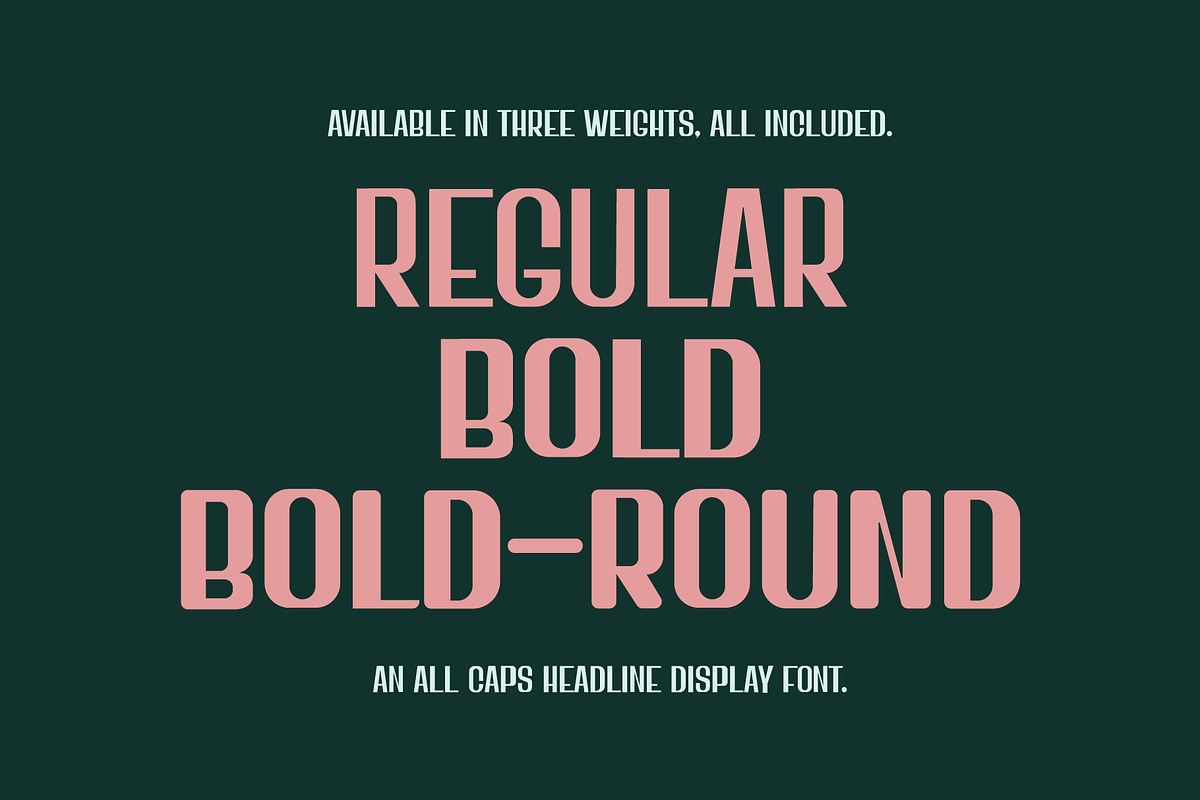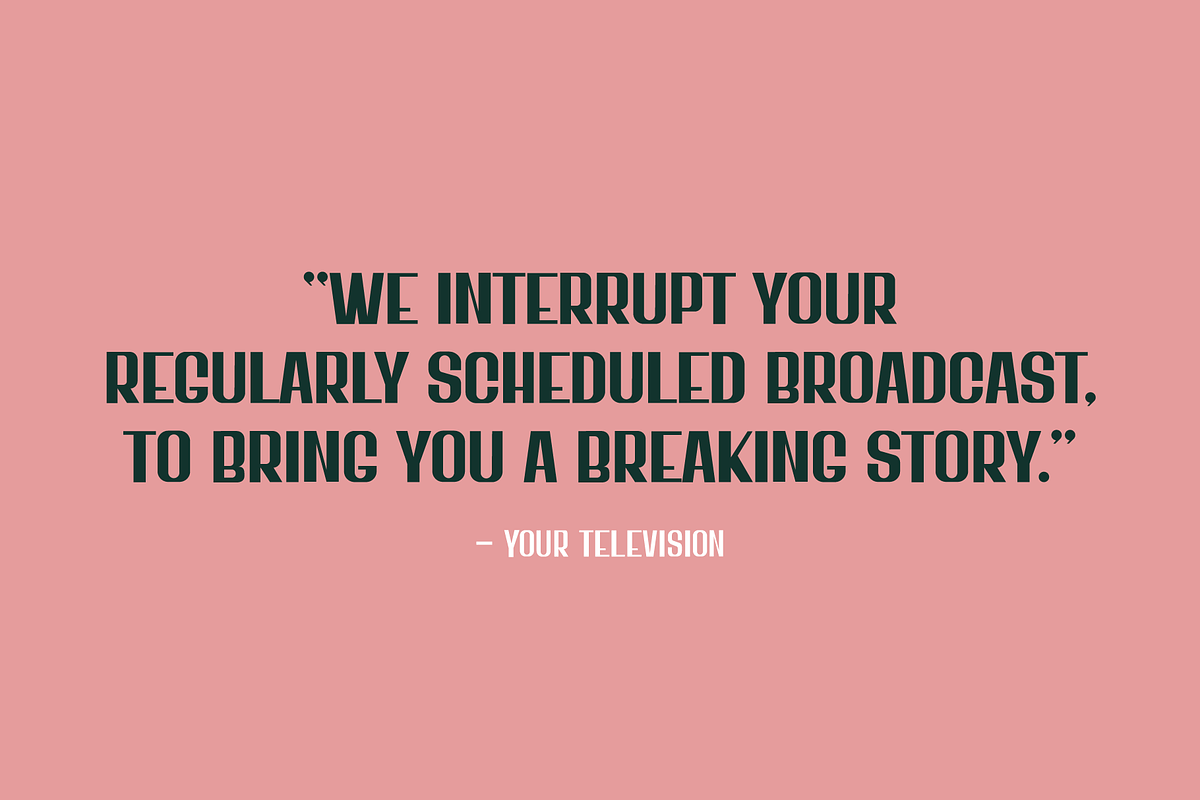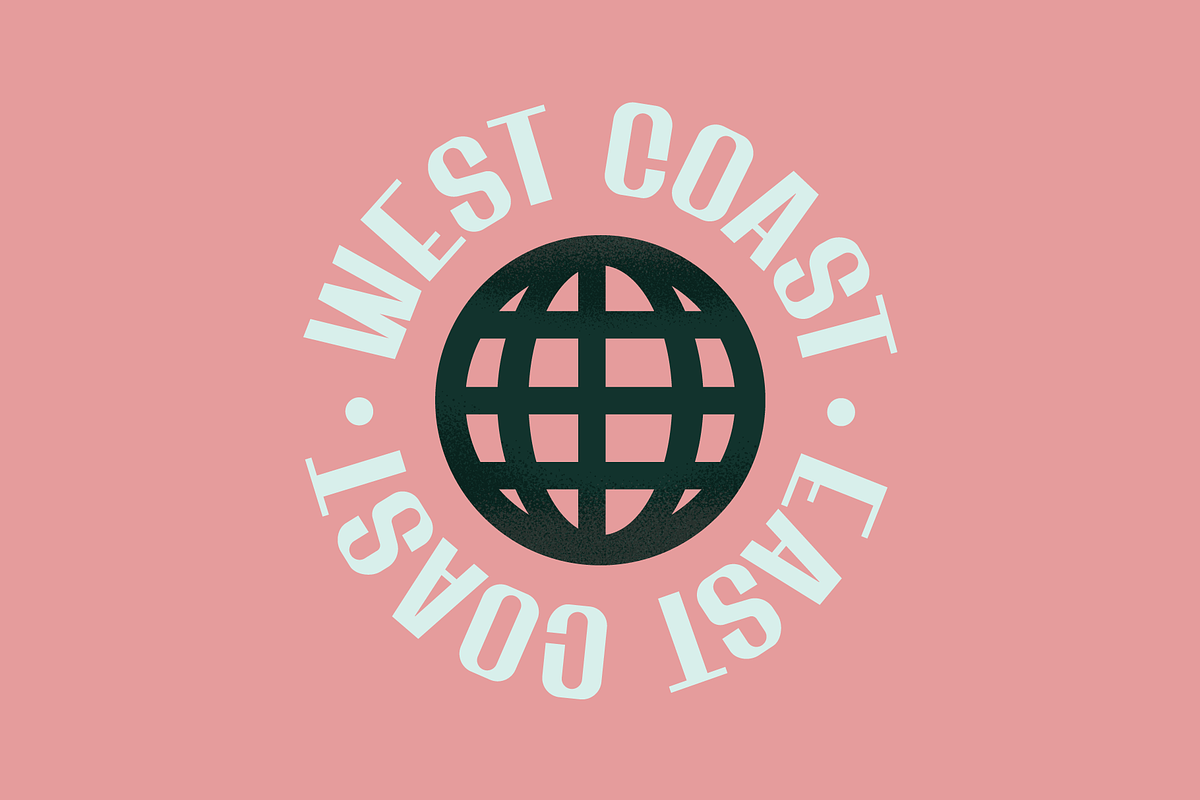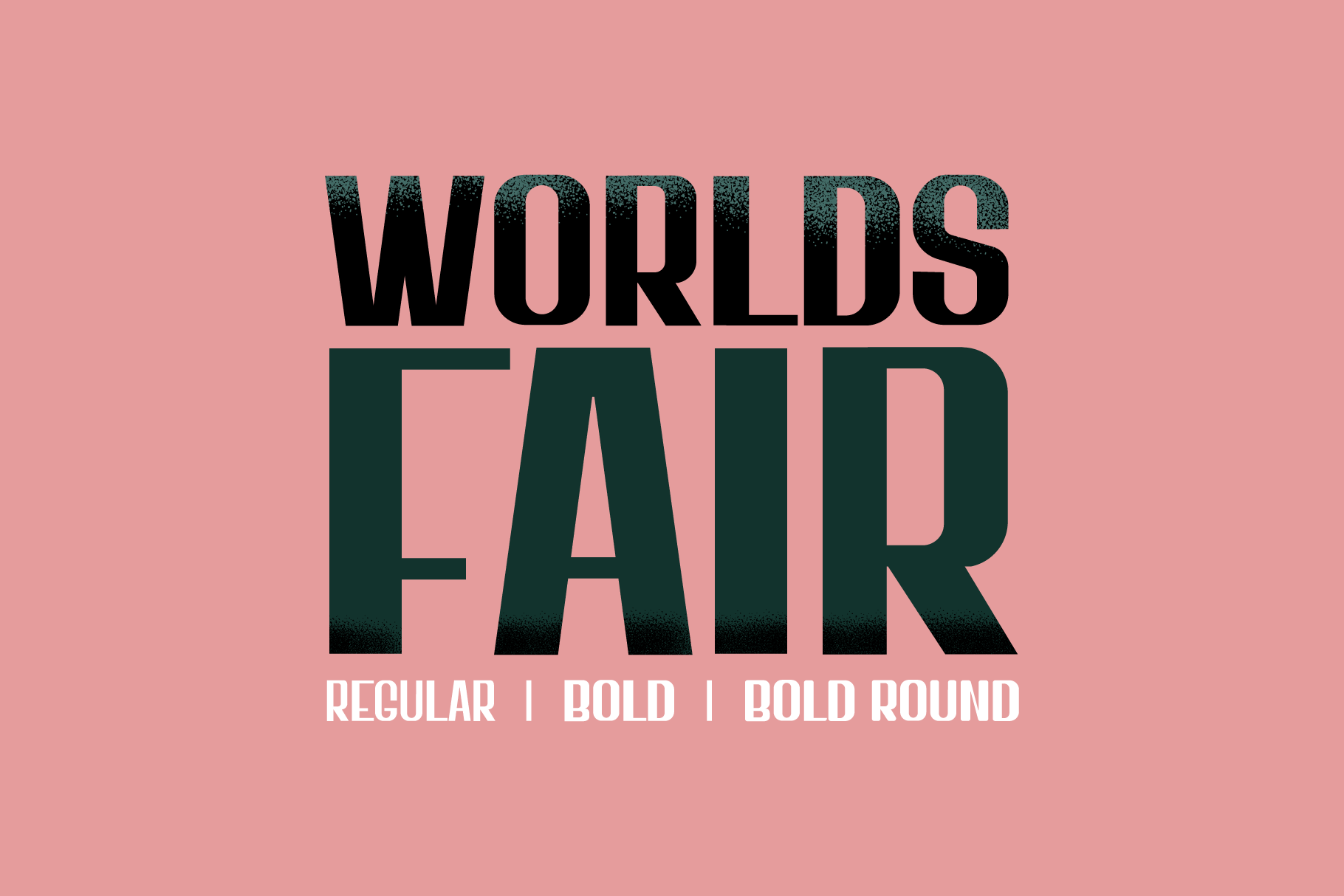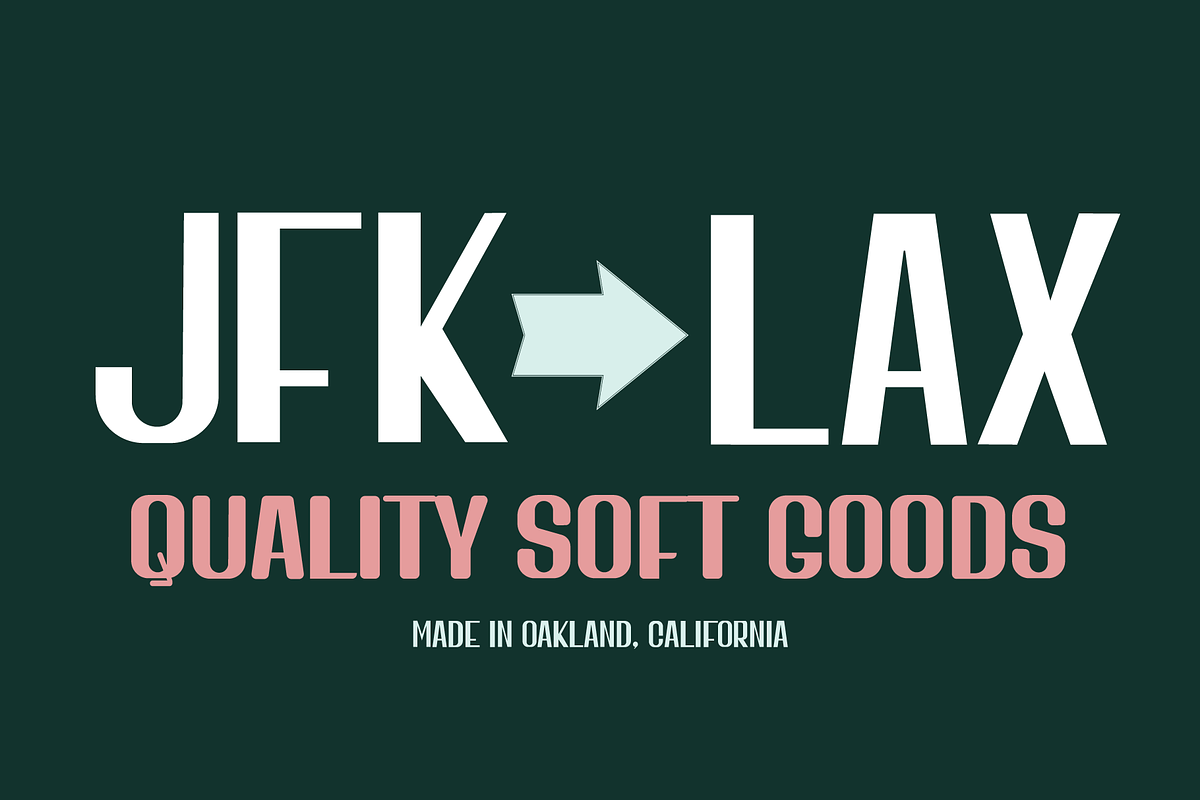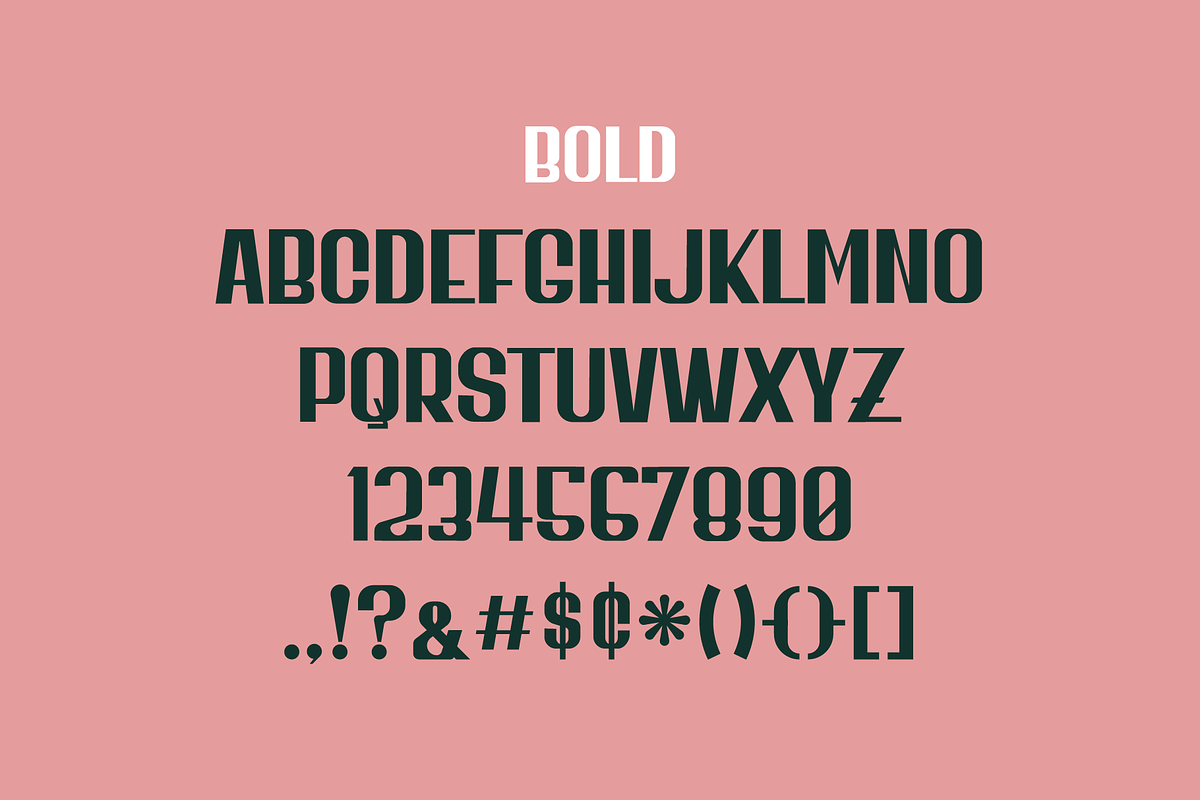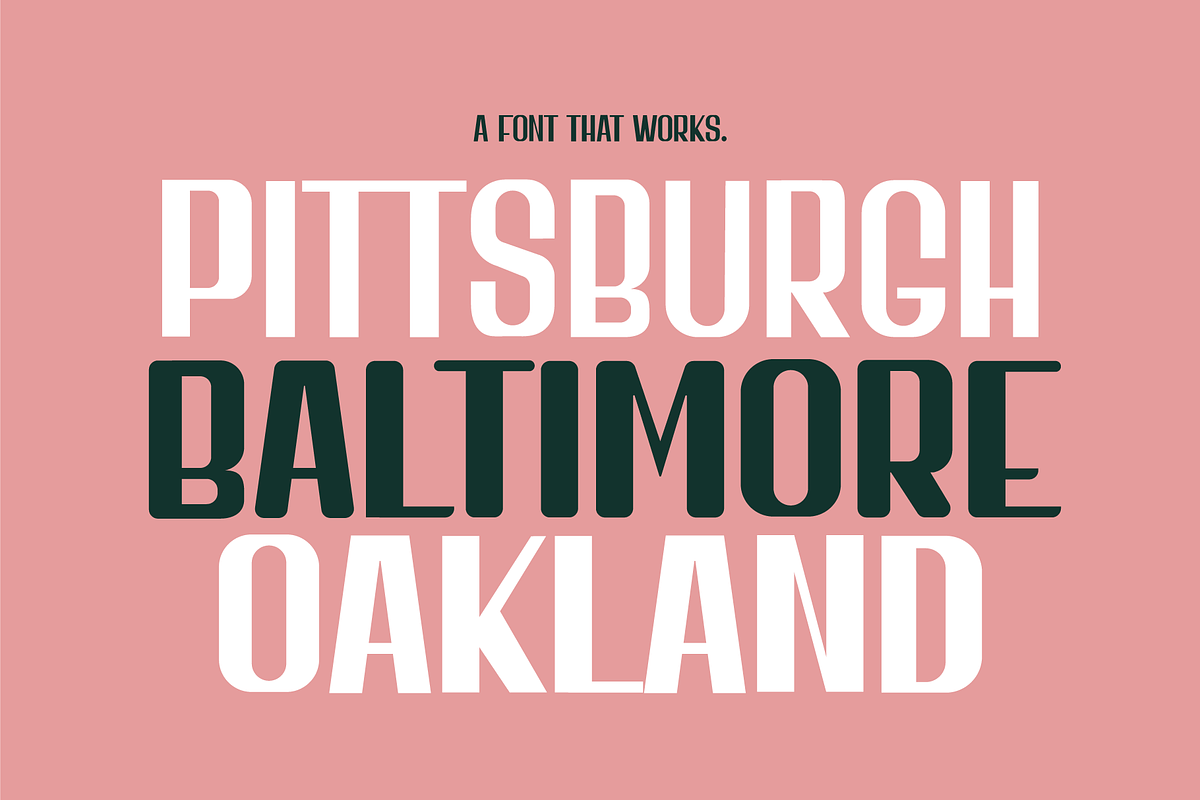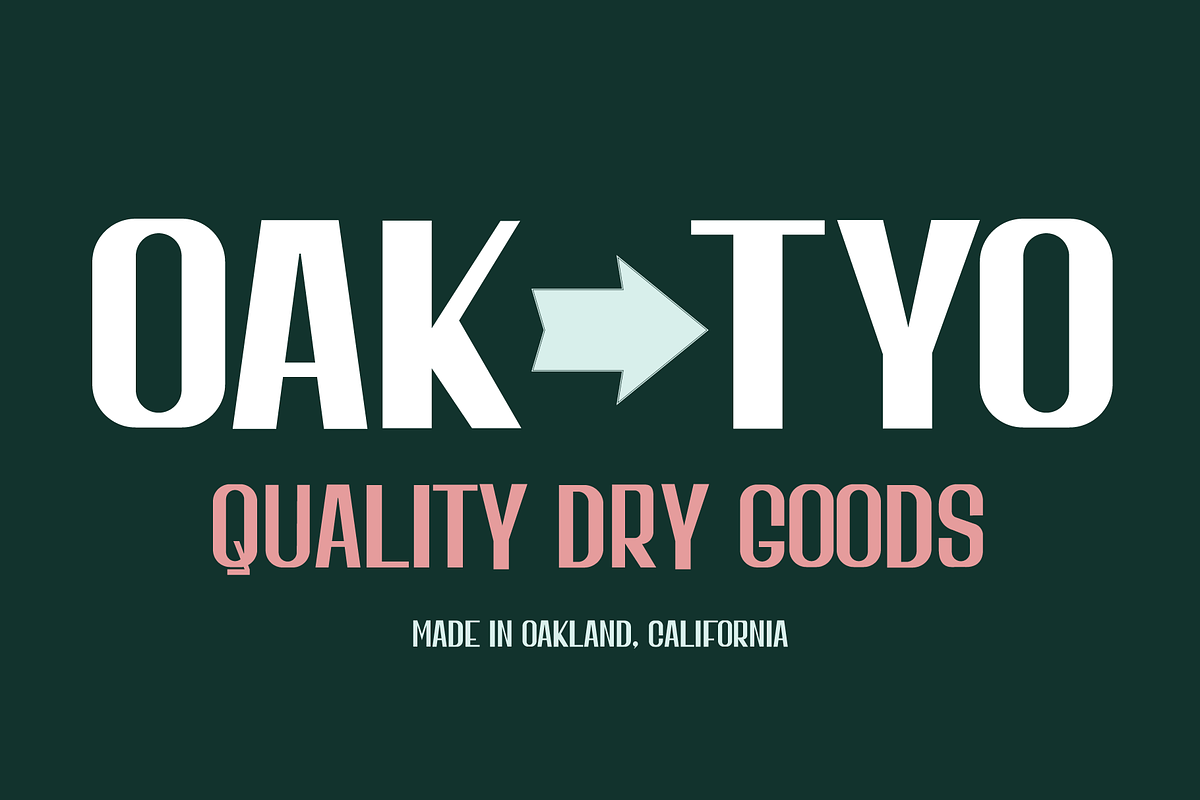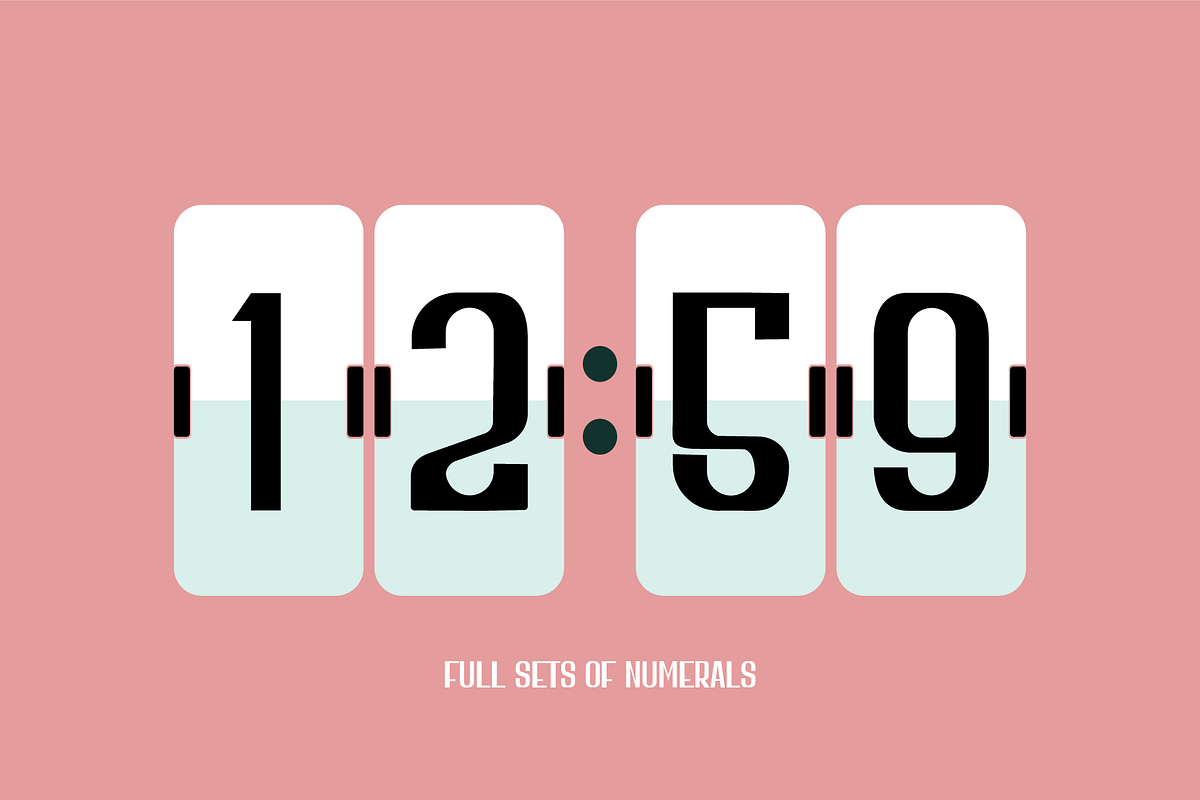
WorldsFair Display Uppercase Font
WorldsFair is an uppercase sans-serif display font. It is playfully retro, with a modern feel. WorldsFair comes in three weights, Regular, Bold, and Bold-Round. The font is nostalgic of mid-century modern and art deco typography. It's clean, simple and full of character.
••Weights included:•• Regular, Bold, Bold-Round
••Comes with:•• Special characters including stylized words and webdings, alphanumeric characters, and 3 weights
••Perfect For:•• Business Cards, Titles, Print, Headers, and Short Quote Blocks